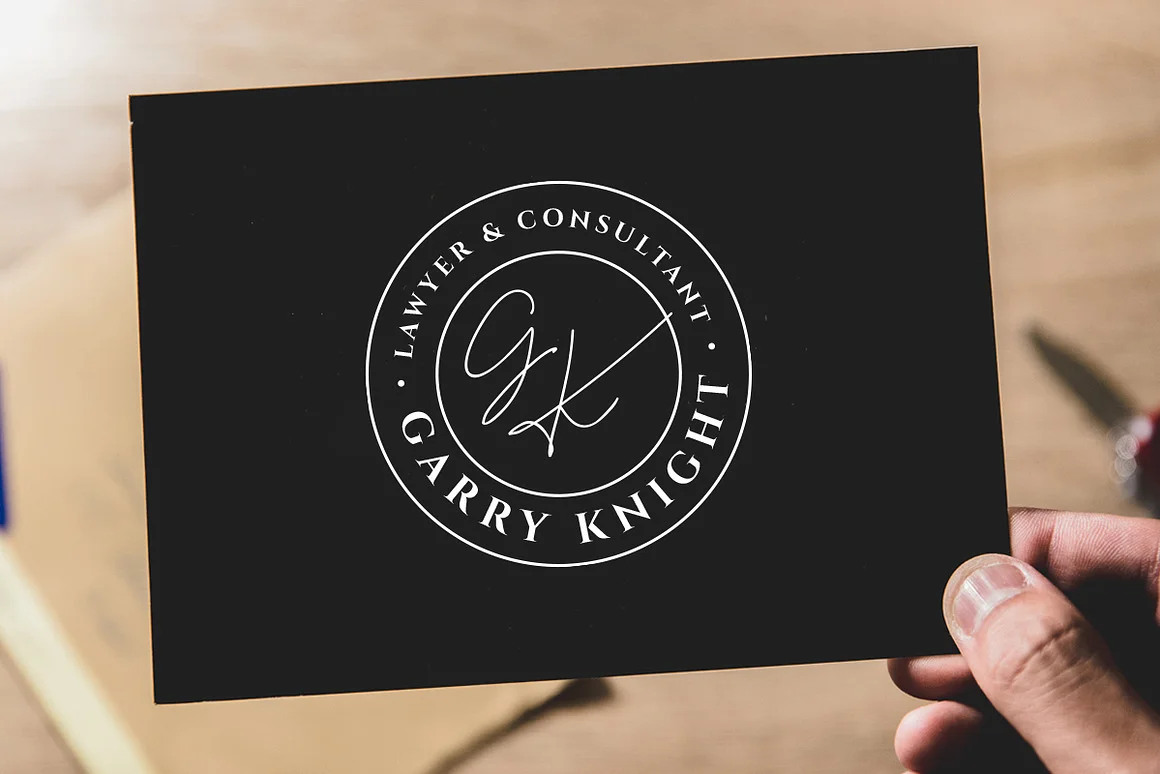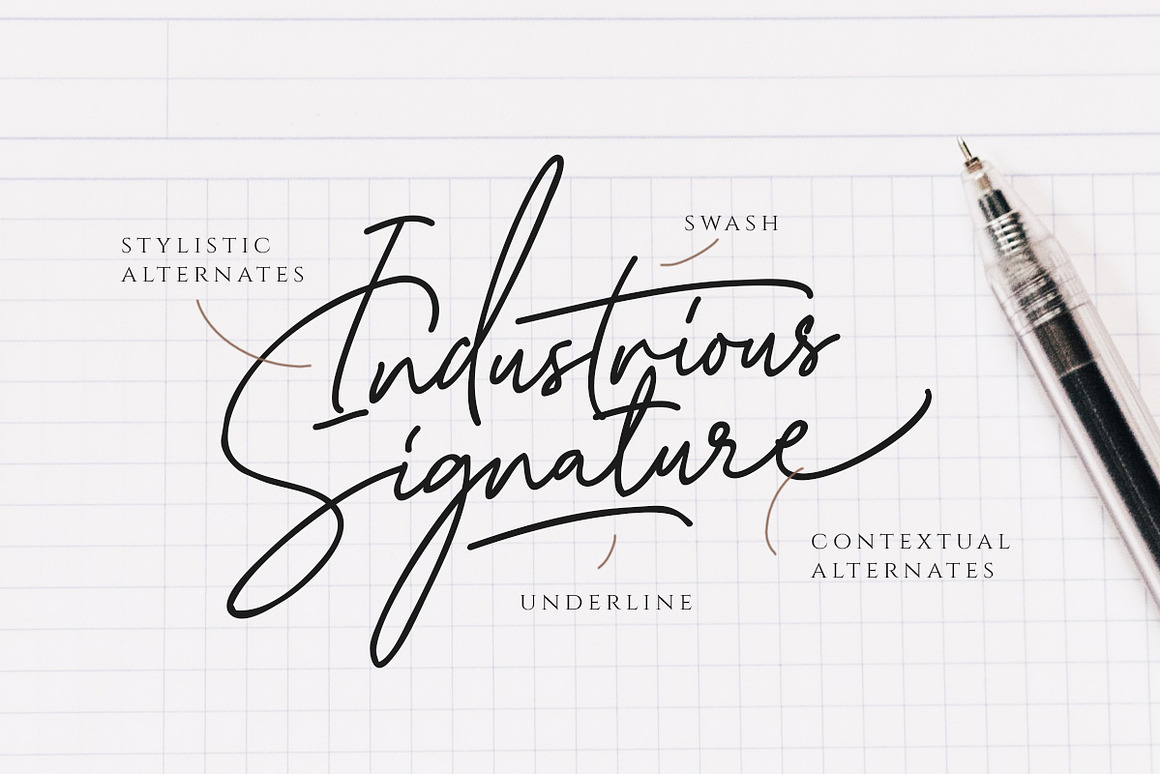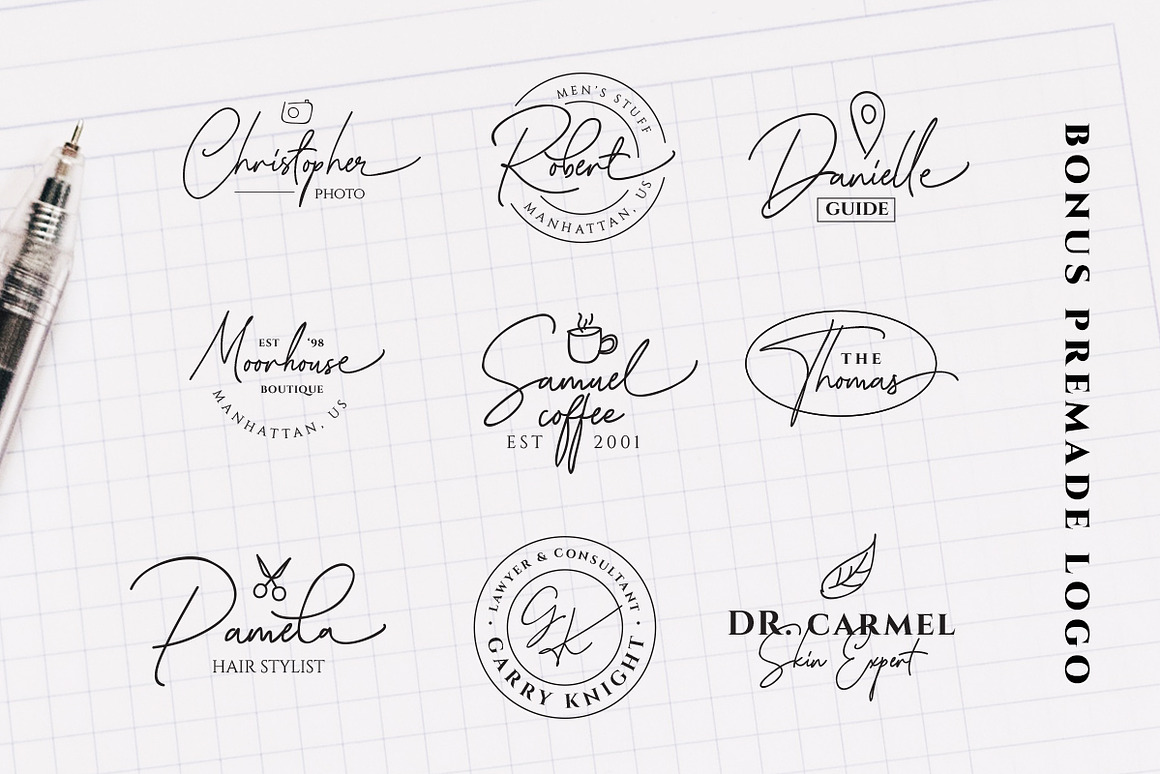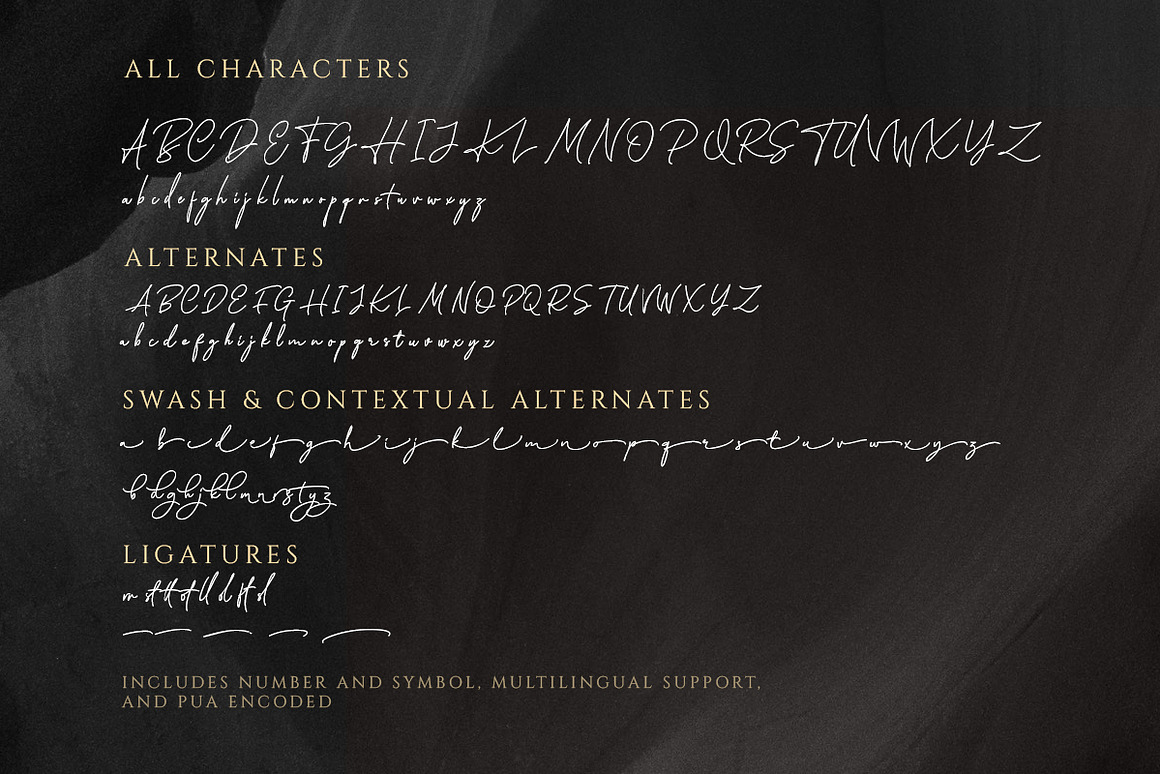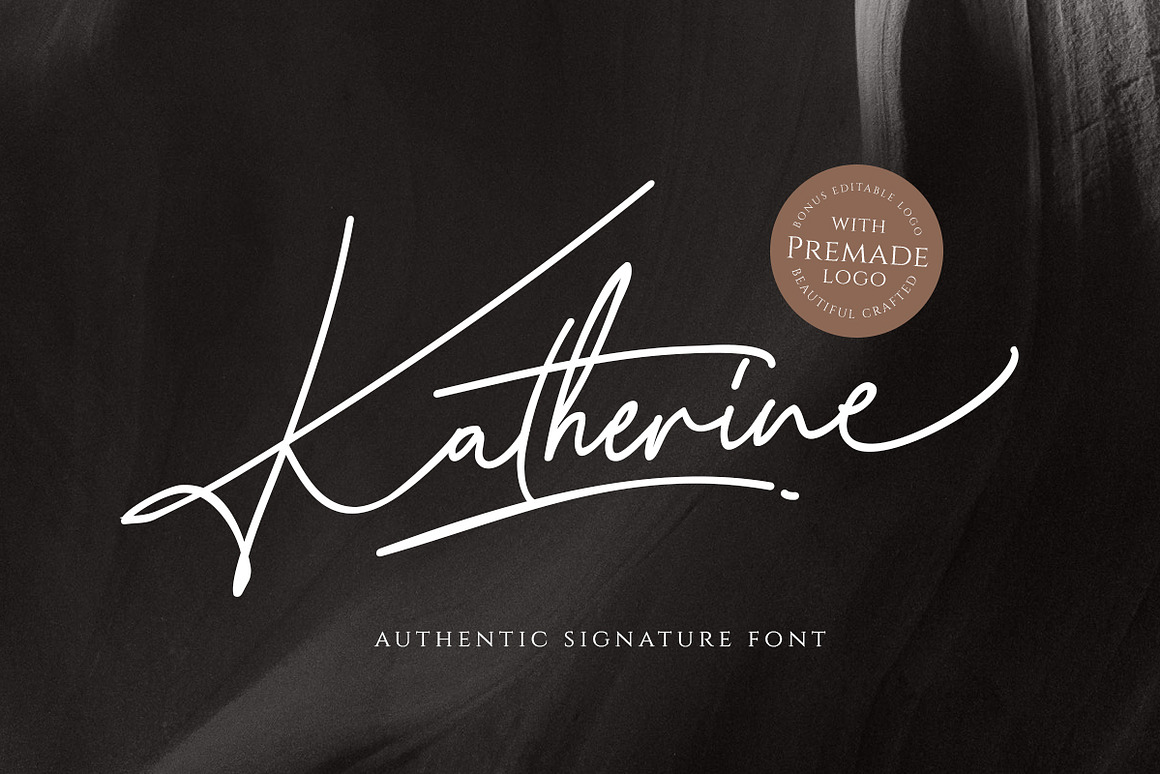
Katherine Script (+Premade Logo)
Katherine Script Font
This Katherine Script Font is perfect for elegant wedding invitations, sophisticated calligraphy projects, luxury fashion branding, graceful beauty salon materials, refined feminine logos, distinguished stationery designs, upscale boutique signage, classic romance novels, premium greeting cards, and timeless personal branding applications.
What makes this Katherine Script Font exciting is its classical elegance that captures the refined grace and timeless sophistication of traditional feminine beauty and aristocratic heritage. The font features flowing script letterforms with classical characteristics that convey refined femininity, noble elegance, and sophisticated grace. Its aristocratic character and elegance-inspired design make it ideal for brands seeking to communicate classical beauty, refined sophistication, and timeless feminine excellence in luxury and lifestyle markets.
The Katherine Script Font family includes regular, medium, and bold weights with classical alternates, elegant variants, and sophisticated flourishes. This comprehensive refined font family provides designers with graceful typographic tools to create aristocratic compositions while maintaining the classical character essential for luxury brands and sophisticated feminine communications.
Luxury brands and wedding professionals consistently choose Katherine Script Font for projects requiring authentic classical appeal and refined feminine elegance. This font's distinctive aristocratic character perfectly captures the sophisticated grace and timeless beauty that resonate with audiences who appreciate classical femininity, luxury traditions, and brands that embody refined elegance and aristocratic sophistication.
The graceful construction of Katherine Script Font showcases elegantly crafted letterforms with classical proportions that ensure exceptional sophistication across all luxury applications. Its refined appearance and aristocratic character create memorable impressions while maintaining the readability necessary for effective elegant communication and luxury materials.
Professional designers appreciate how Katherine Script Font brings immediate classical authenticity and refined elegance to brand communications. The font's sophisticated nature allows organizations to communicate feminine excellence and aristocratic grace while maintaining the professional quality necessary for effective positioning in luxury and refined lifestyle markets.
The timeless appeal of Katherine Script Font makes it particularly effective for brands emphasizing classical femininity, aristocratic elegance, and refined sophistication. Its graceful character resonates strongly with audiences who appreciate traditional beauty, feminine grace, and brands that represent the enduring elegance and sophisticated refinement of classical feminine excellence.
Whether developing materials for luxury wedding services or creating branding for refined feminine businesses, Katherine Script Font provides the elegant typographic foundation that sophisticated brands need to communicate their classical beauty, aristocratic grace, and the timeless sophistication that defines refined feminine elegance and luxury lifestyle achievement.